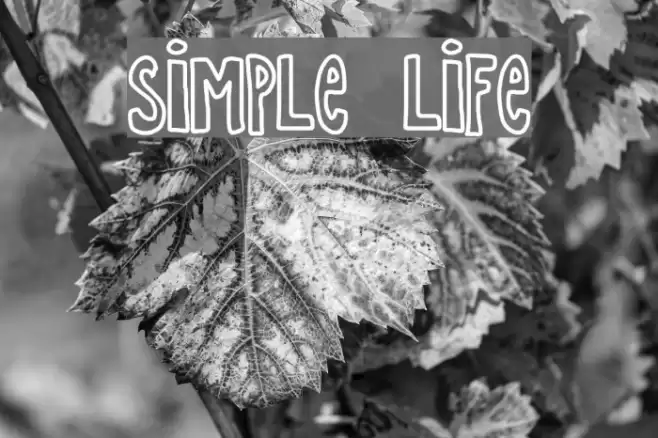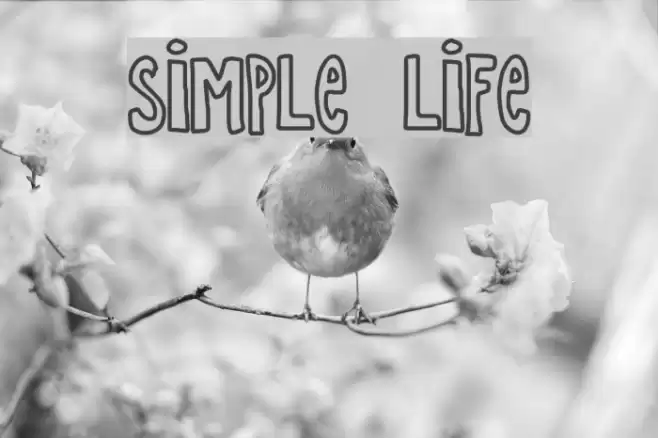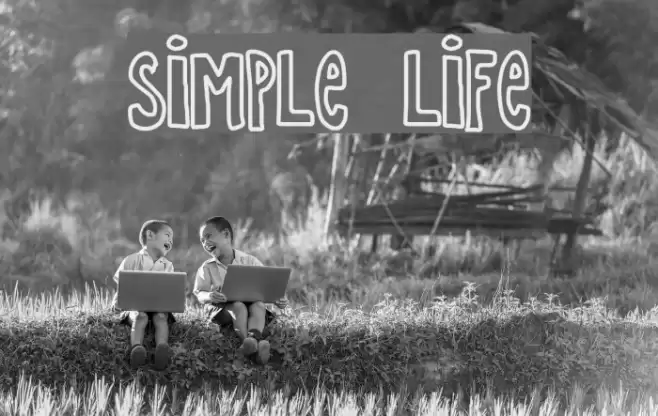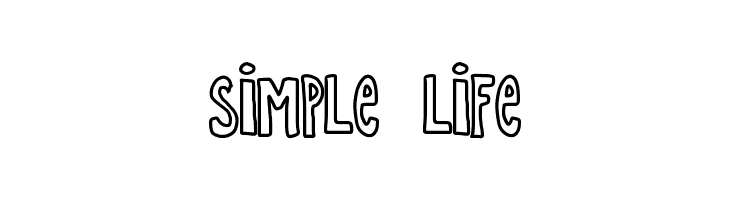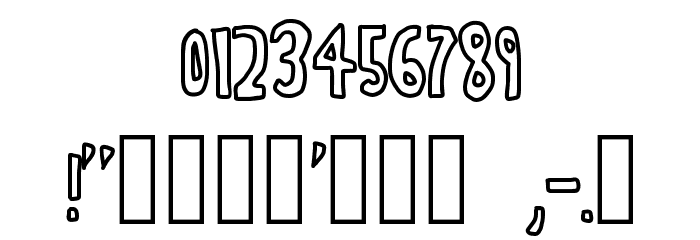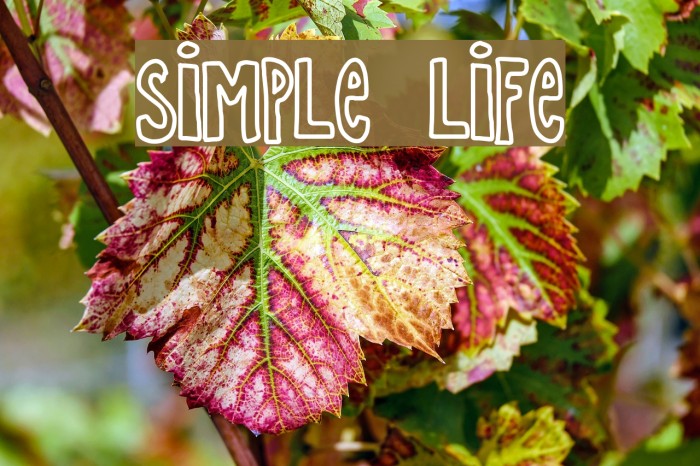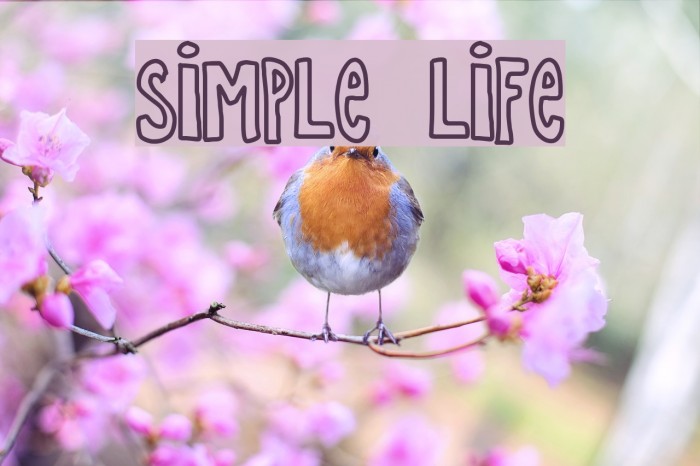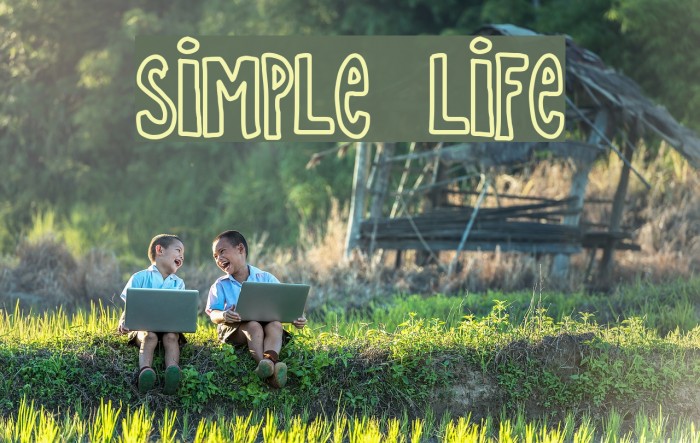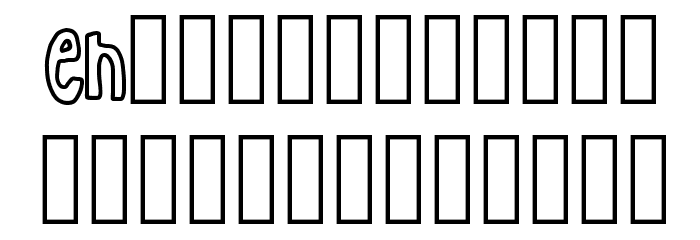
SIMPLE LIFE Font
SIMPLE LIFE Description
This playful and bold font features a hand-drawn, cartoonish style with thick outlines and a slightly irregular shape, giving it a whimsical and informal appearance. The uppercase letters are prominent and eye-catching, while the lowercase letters maintain a consistent style with a touch of quirkiness. The numbers are bold and match the overall playful theme. Special characters are included, maintaining the same bold and outlined style. This font is perfect for projects that require a fun and engaging look, such as children's books, comic strips, or playful branding.
A playful, bold, hand-drawn font with thick outlines and a whimsical style from Uncategorized fonts.
- Proposed Projects: Ideal for children's books, comic strips, playful branding, and casual invitations.
- Overall Style: Playful, Whimsical, Informal